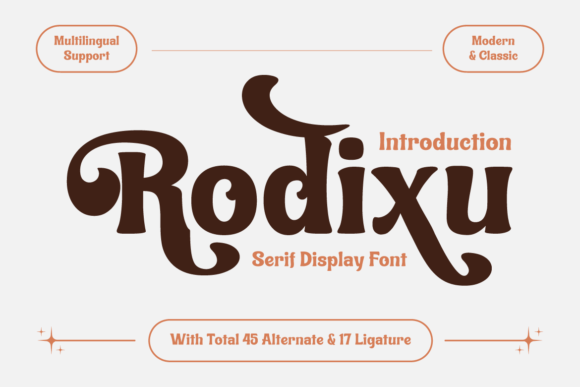
Introducing the Rodixu Font, the perfect combination of classic sophistication and timeless elegance. Designed by Productype, this font is a serif typeface that features clean lines and balanced proportions, making it the ideal choice for any project that requires a refined touch.
Rodixu Font is more than just a typeface; it's a statement. The characters have been carefully crafted to deliver a visually pleasing and harmonious result, providing your designs with an exquisite look and feel that can elevate any brand. With its classic yet contemporary style, Rodixu Font is versatile and suitable for anything from editorial layouts to branding materials, giving you the flexibility to create designs that will stand out from the crowd.
But that's not all - Rodixu Font is PUA encoded, which means that you can access all glyphs and swashes easily, making it effortless to add that extra touch of elegance to your designs. Whether you're designing a wedding invitation, a business card, or a book cover, Rodixu Font has everything you need to make your design pop and stand out.